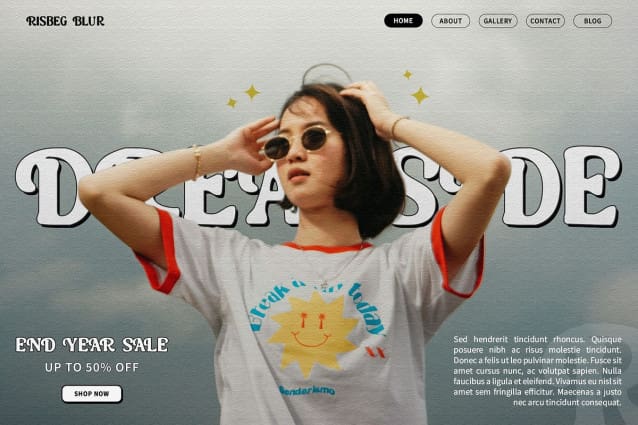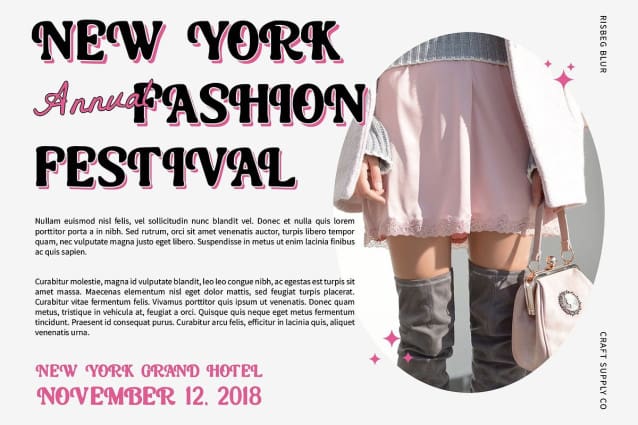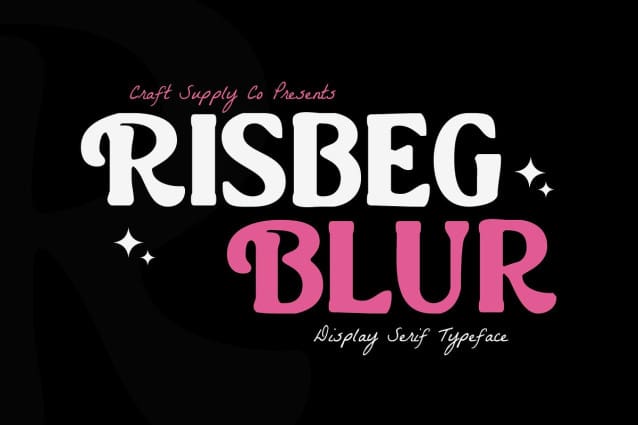
Risbeg Blur Font
Risbeg Blur Font is a beautiful and elegant serif font that exudes luxury and neatness, enhanced by its distinctive blur effect. The smooth lines of this design convey a refined and polished appearance, perfect for projects that prioritize an elegant and charming impression.
The blur effect in Risbeg Blur adds an artistic dimension, elevating its elegance with a touch of creativity. This feature makes the font suitable for designs that aim to showcase prominent creative and experimental elements while maintaining a sophisticated aesthetic.
Ideal for a wide range of projects, Risbeg Blur adapts seamlessly to both corporate and artistic contexts. Whether used in branding, editorial layouts, invitations, or posters, its blend of elegance and artistic flair ensures a captivating typographic presence that stands out with its unique charm.